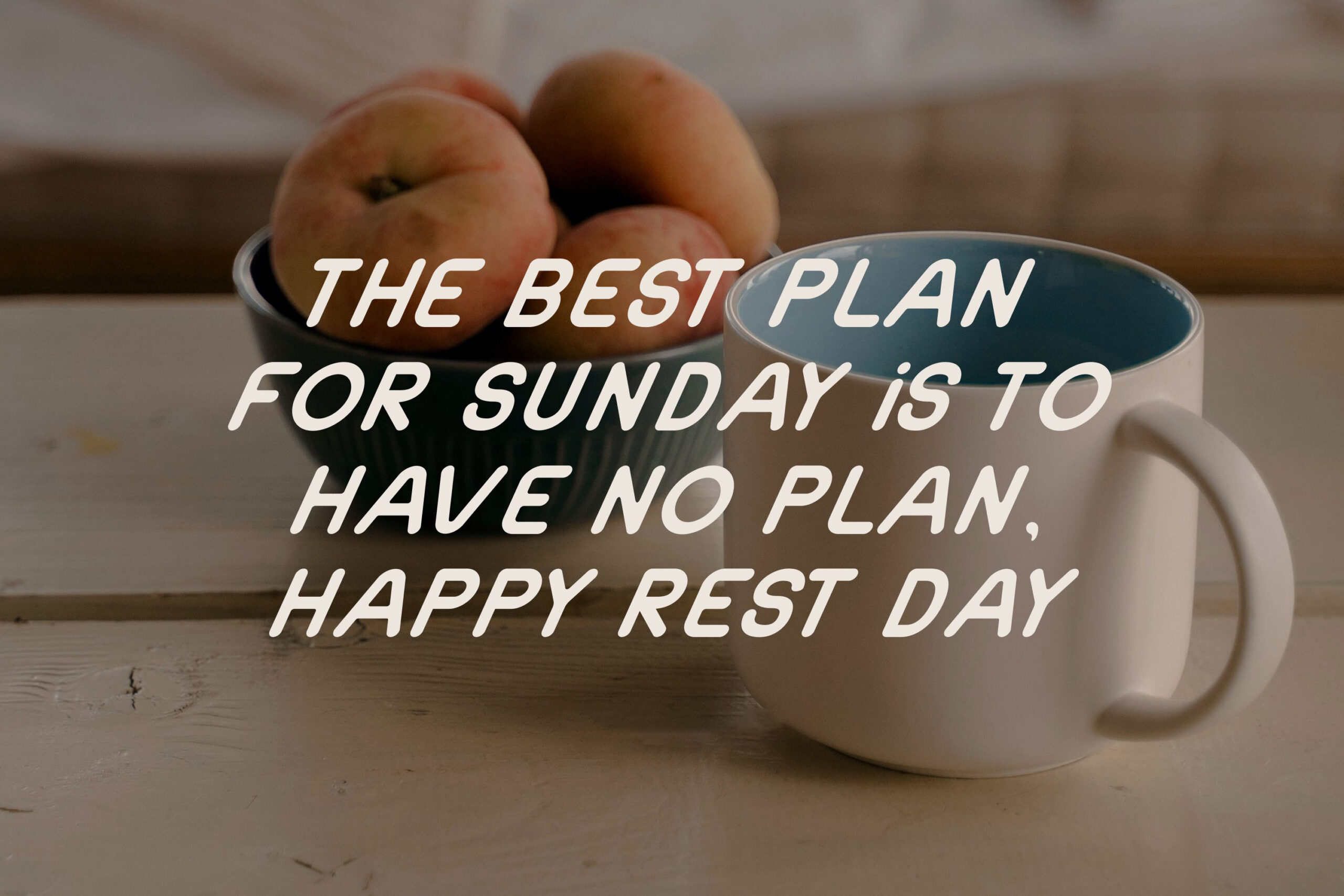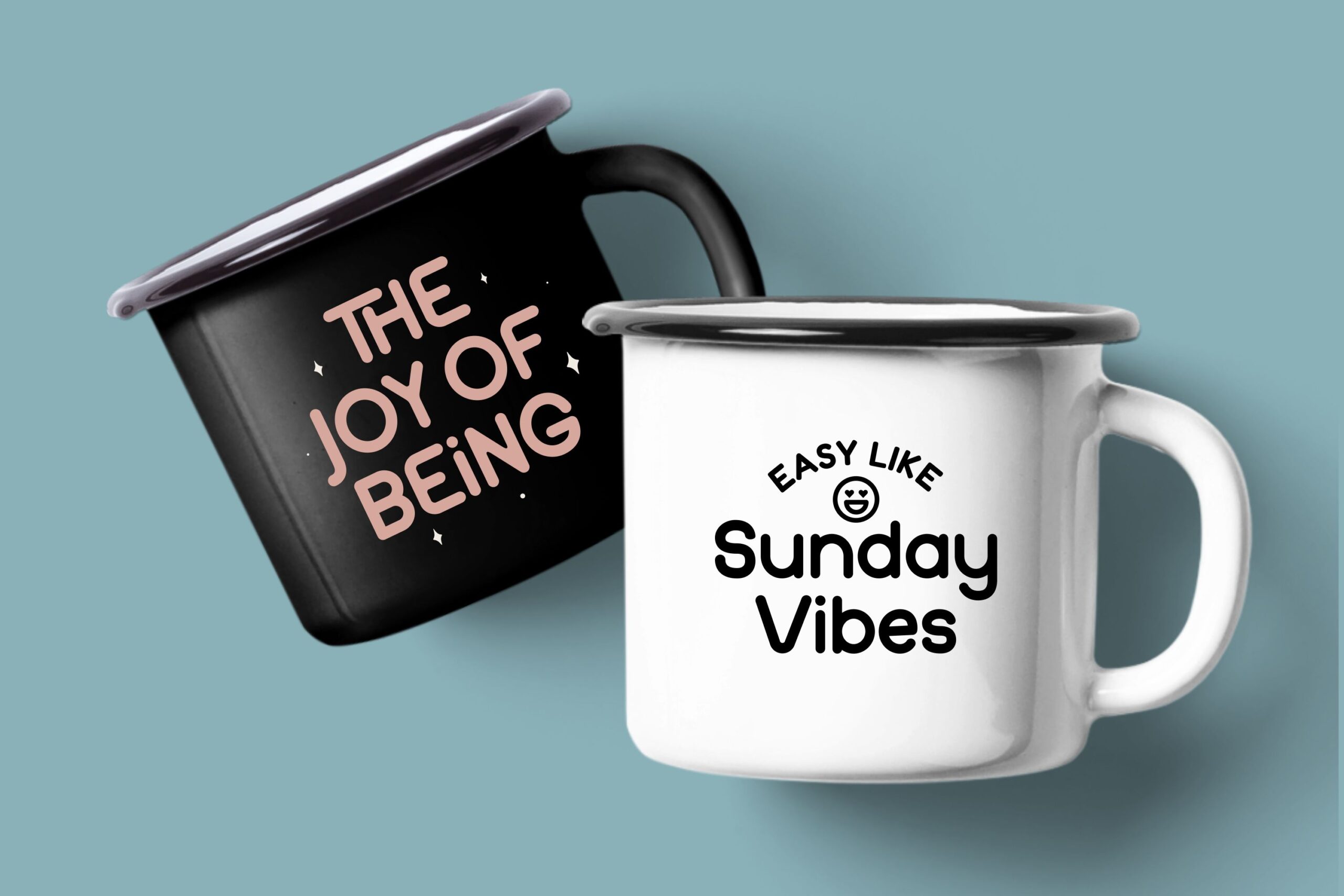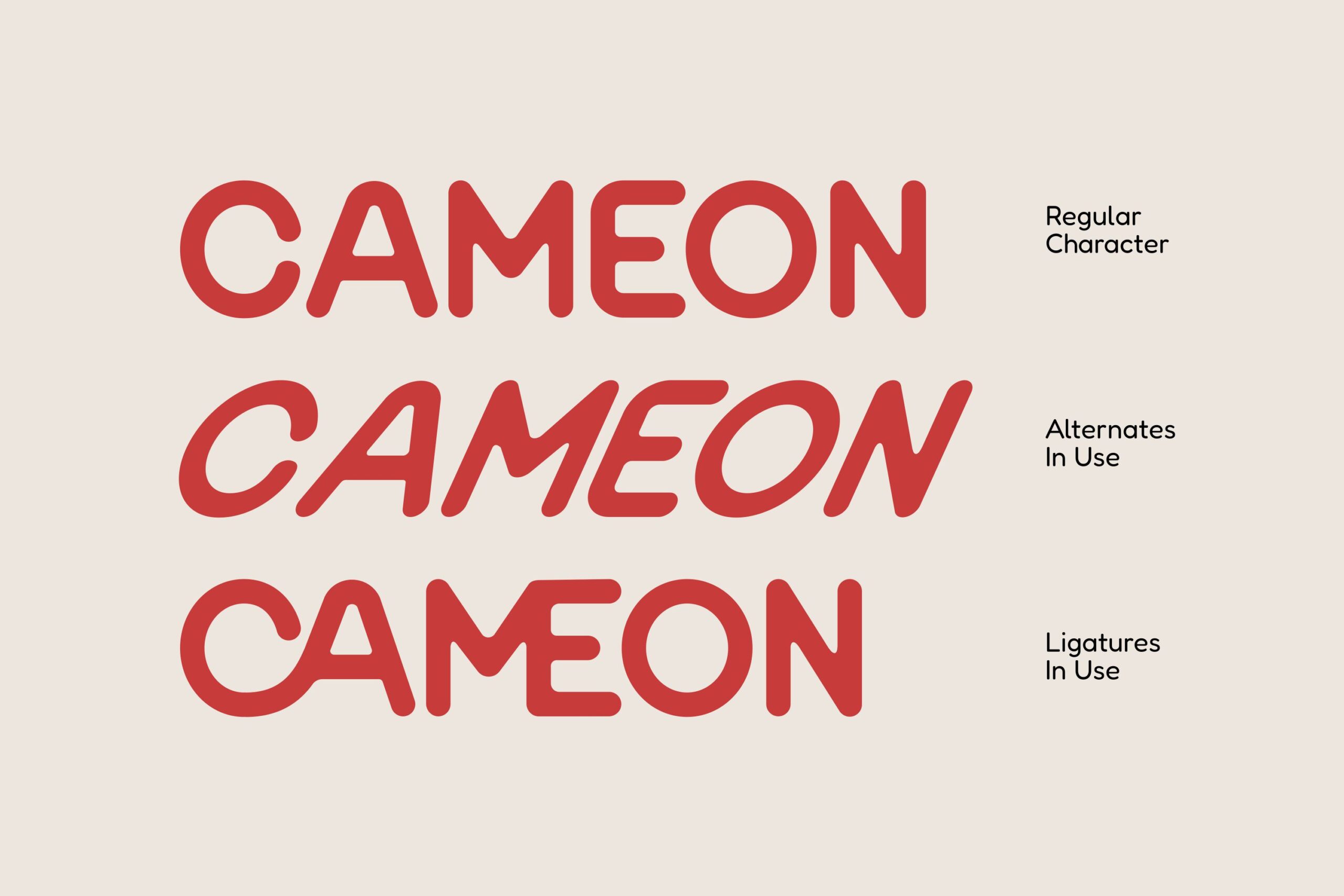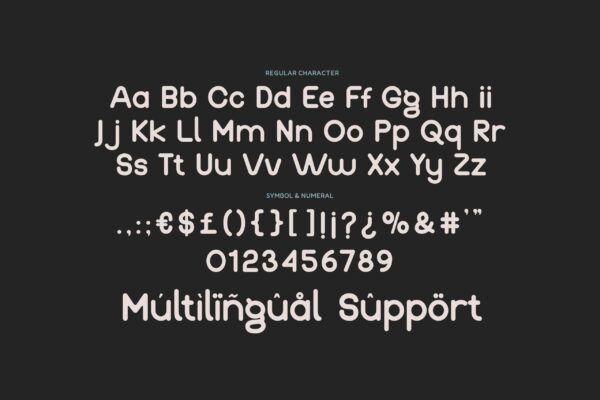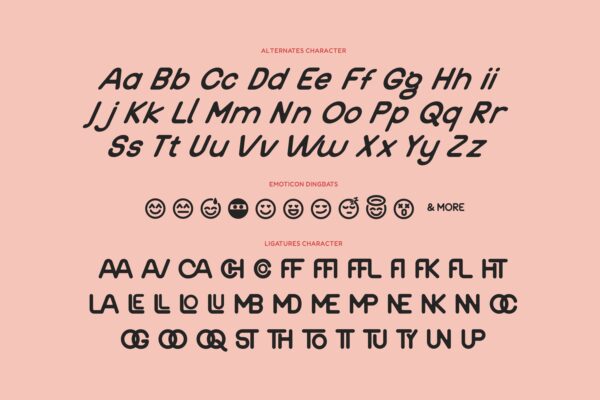
Toms Bunych is a rounded sans serif font that radiates friendliness, warmth, and playfulness. With its soft edges and smooth curves, this font brings a casual yet modern vibe, making it ideal for children’s projects, quotes, packaging, and lifestyle branding. Its approachable design ensures readability while adding a cheerful personality to every layout.
The font comes with alternates, ligatures, and fun emoticon dingbats, giving designers more flexibility and creativity in their work. Supporting multilingual characters, Toms Bunych is a versatile typeface for social media content, greeting cards, logos, and editorial designs that want to feel lighthearted, joyful, and unique.
Toms Bunych